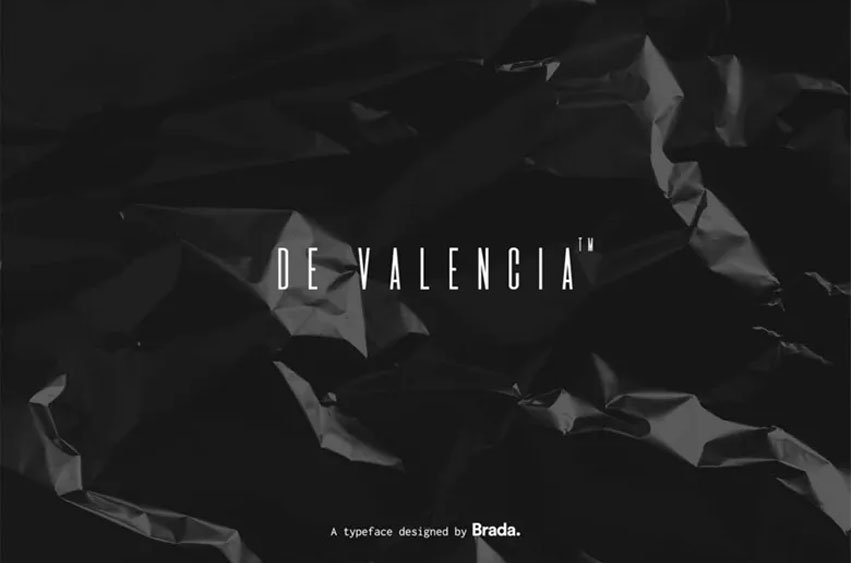
De Valencia Font
De Valencia Font is a polished monospaced display font with a beautiful and minimalist feel. This design borrows from the Mexican film “A Solas”. It served as the film’s original logo. It features wide kerning for a strong visual appeal. The small sizes make a tall, thin flow that economises on space in layouts.
Use this font in titles, editorials, posters, and logos. Its contemporary look works elegantly for photo overlays and visually appealing cinematic designs. Creatives use it for a clear hierarchy and consistent visuals to every design.